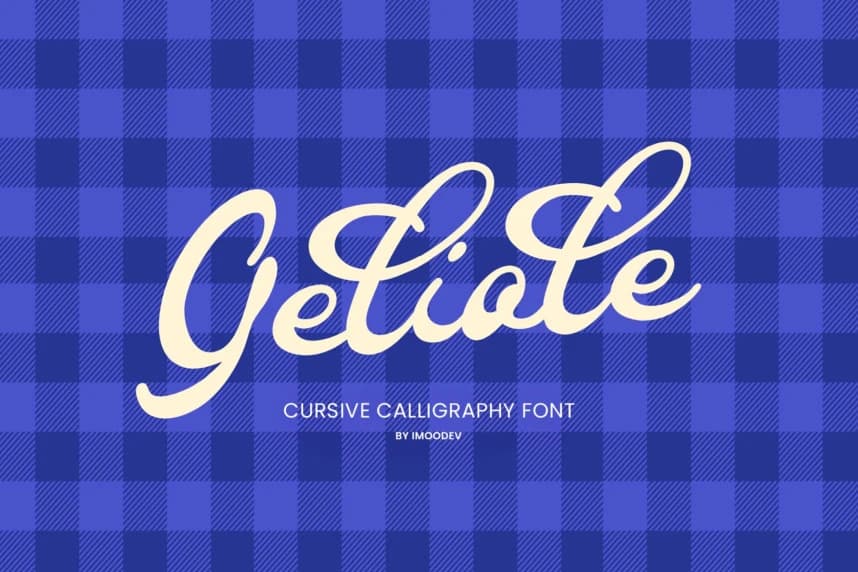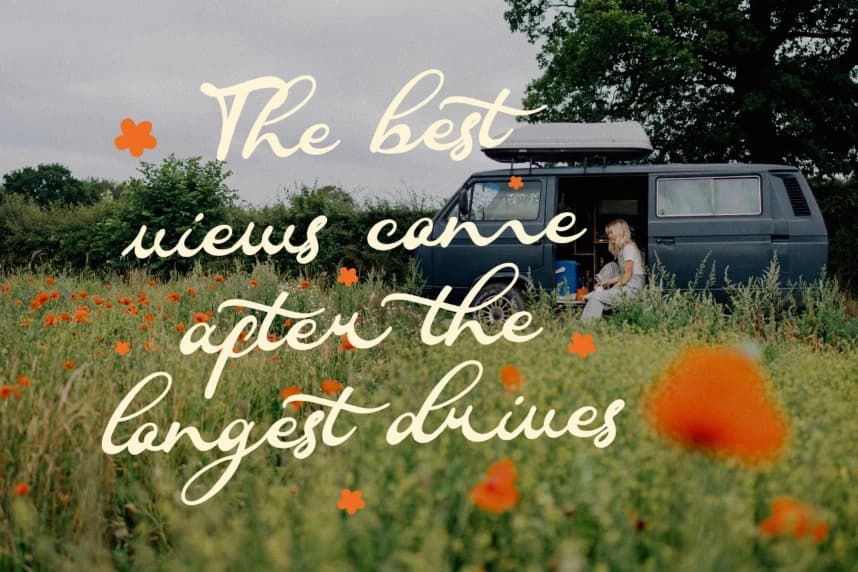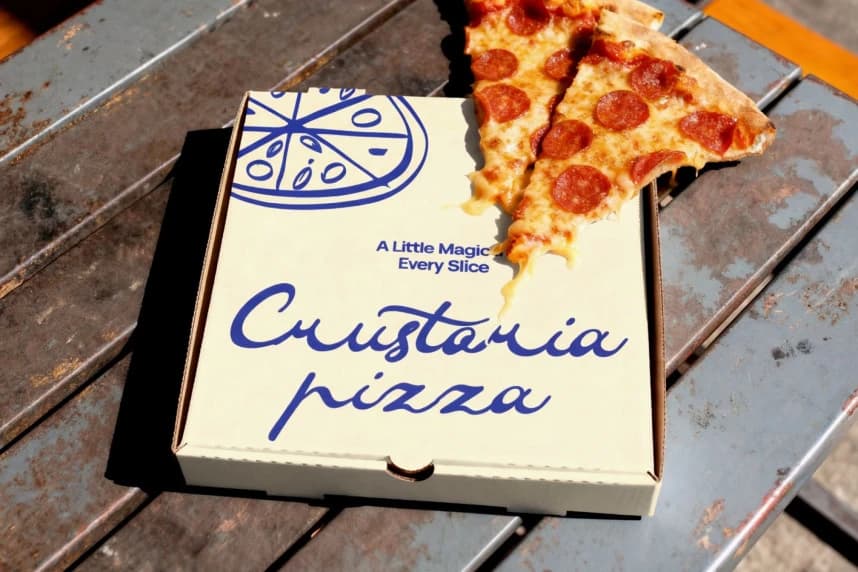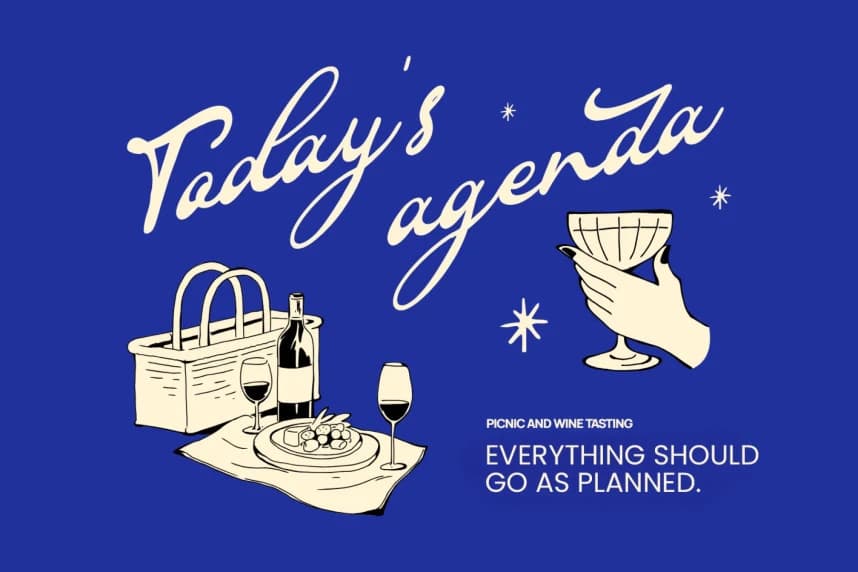
Galiole Script Font
Galiole Script Font is a sophisticated cursive calligraphy font that blends the fluid artistry of traditional hand lettering with a clean, modern aesthetic. Characterized by its rhythmic strokes and elegant swashes, this font exudes a sense of effortless grace and warmth.